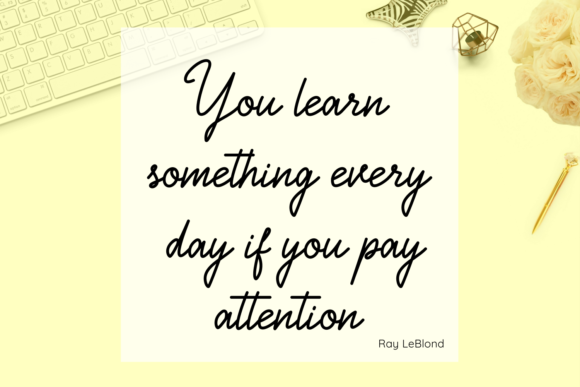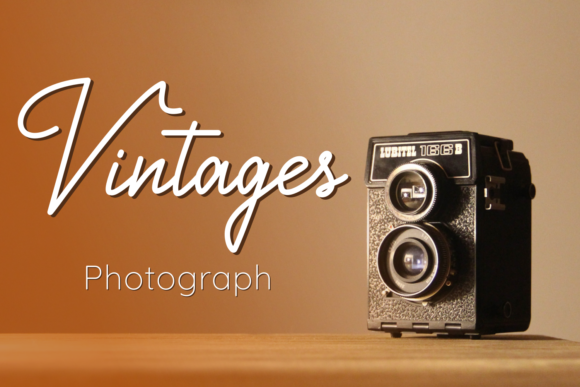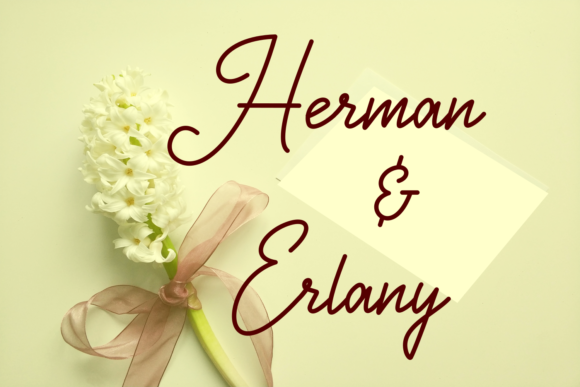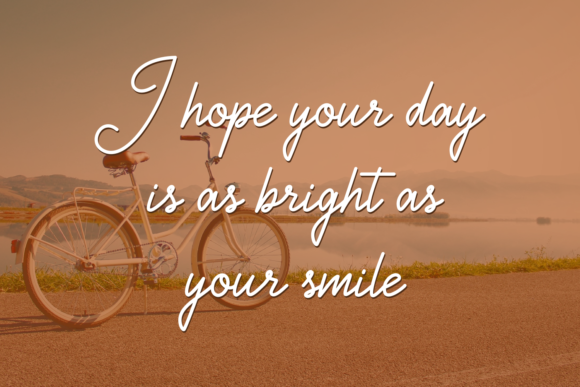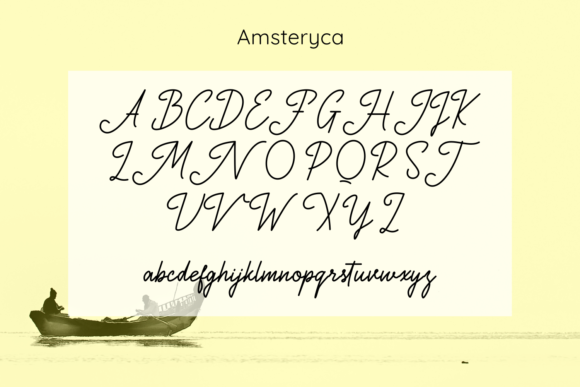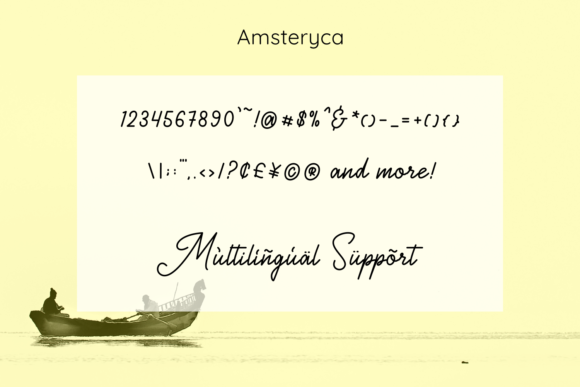
Have you ever stared at a blank page, trying to decide on the perfect font for your next project? The cursor blinks, and your mind goes blank. But what if I told you that there’s a font that’s as elegant as a spring morning, as delicate as a rose petal, and as captivating as a romantic ballad? Introducing the Amsteryca Font, a thin lettered and graceful script font that will leave your audience spellbound.
This versatile font is perfect for creating stunning wedding invitations, beautiful stationery art, eye-catching social media posts, and much more. With its ravishing style, the Amsteryca Font is a valuable asset for designers who want to add a touch of sophistication and elegance to their projects. Whether you’re a seasoned pro or a budding designer, this font is sure to inspire your creativity and take your work to the next level.
Review of Amsteryca Font
First off, I want to say that Amsteryca Font has some great qualities that make it a decent choice for certain projects ✨. The font’s unique blend of modern and vintage elements is quite striking, and it’s perfect for designers who want to add a touch of sophistication to their designs. Additionally, the font is highly legible, making it easy to read even at smaller font sizes.
The font also supports a wide range of languages, including Cyrillic and Greek, which is a big plus for designers who work with clients from diverse cultural backgrounds ✨. The font’s OpenType features are also quite extensive, allowing for some nice typographic flourishes and effects.
While Amsteryca Font has its strengths, it’s not without its limitations ⚠️. One of the main issues is that the font can be a bit too ornate for some projects. The intricate details and flourishes can make the text look cluttered and difficult to read, especially at larger font sizes. Additionally, the font’s weight and spacing can be a bit inconsistent, which can affect the overall aesthetic of a design.
Overall, I think Amsteryca Font is a solid choice for designers who want to add a touch of elegance to their projects ✨. While it may not be the best choice for every project, it’s definitely worth considering for designs that require a unique and sophisticated look. With a bit of tweaking and adjustment, I think this font has the potential to be a real showstopper.
Recommendation
- Use Amsteryca Font for designs that require a touch of sophistication and elegance.
- Avoid using Amsteryca Font for projects that require a clean and minimalist look.
- Experiment with different font weights and sizes to get the best results.
A Practical Application Guide for Amsteryca Font
Amusteryca Font is ideal for creating bold and modern headings in Canva.
Amusteryca Font is ideal for creating bold and modern typography in Adobe Photoshop and Illustrator.
Amusteryca Font is ideal for creating bold and modern headings in PowerPoint and Word.
Tips for Getting the Most Out of Amsteryca Font
Use Amsteryca Font to create bold and modern headings that grab attention.
Combine Amsteryca Font with other bold fonts to create a unique and eye-catching typography style.
Use Amsteryca Font in conjunction with bright and bold colors to create a visually striking design.
Amusteryca Font is ideal for:
Creating bold and modern headings.
Designing eye-catching typography styles.
Adding a modern touch to your designs.